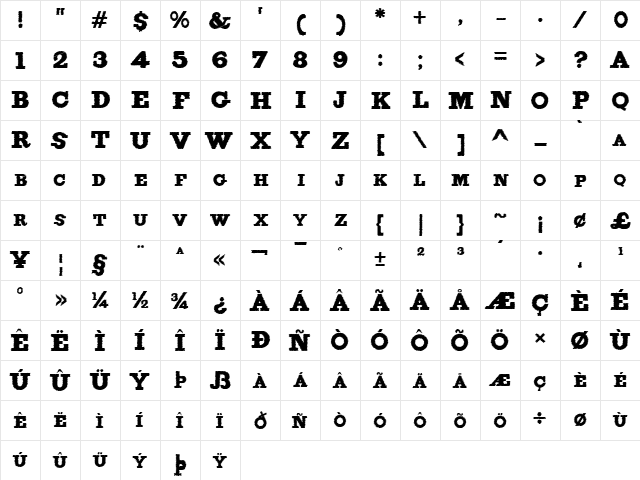
FigginsBrute Trash Regular
| Foundry | Iza W, Paulo W |
| Designer | IzaW |
Design Context for FigginsBrute Trash Typeface
FigginsBrute Trash is a composed and adaptable typeface that performs quietly and consistently across a wide range of design contexts.